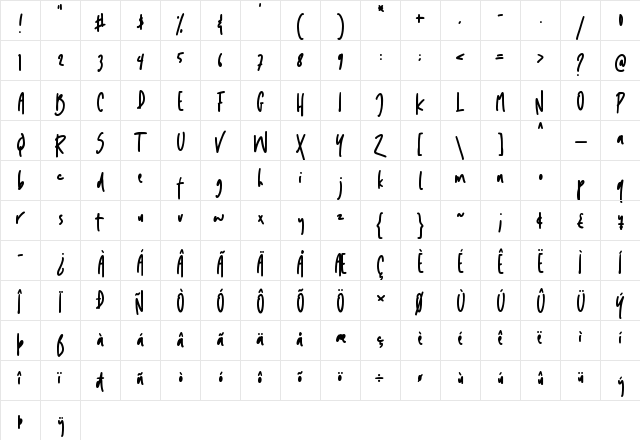
Hippotamia Regular
| Designer | Muhamad Yusron Billah |
Design Context for Hippotamia Typeface
Hippotamia is a composed and adaptable typeface that performs quietly and consistently across a wide range of design contexts.